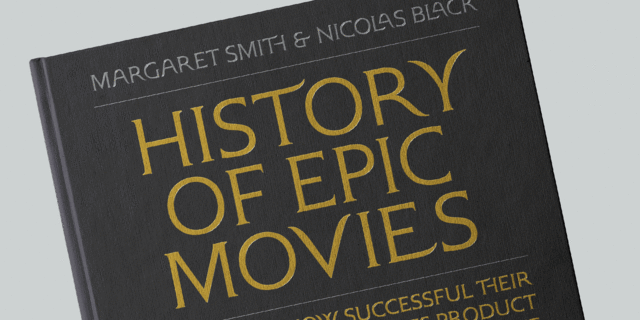
About Plastilin type family of two weights obtained its name due to the soft, curved stroke terminals of characters (J, K, L, R and others) and little pointed serifs, as if extruded from stroke plastic mass. The character set has a lot of additional Latin and Cyrillic ligatures, as well as several alternate letter forms. Plastilin was designed for ParaType by Oleg Karpinsky in 2005. It is applicable for both display setting and short text passages. In 2008 the author added two weights (Light and Black) and improved letterforms of some characters.
Associations for font family PlastilinTypeface personality and character:
bizarre, original, Soft, plastic, alive, astonishing, strange, unusual, distinctive, streamlined, smooth, fussy, interesting, flexible, experimental, delicious, notable